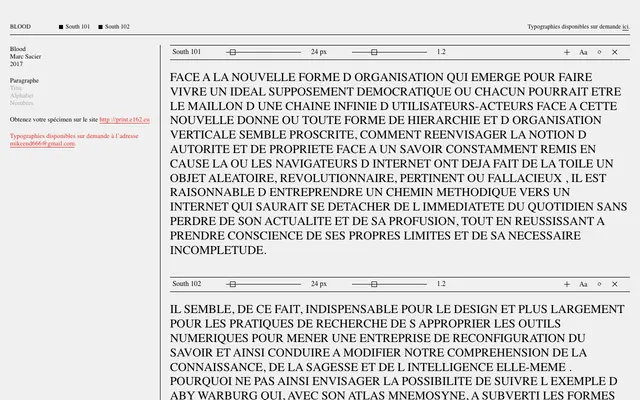
Blood
E162 · Marc Sacier · 2017
An all-capitals display typeface by Marc Sacier, released in two stylistic variants through the small French foundry E162.
Designed by Marc Sacier in 2017 and available through E162, Blood comes in two subfamilies — South 101 and South 102 — each offering a distinct stylistic register within the same all-capitals display framework. The character set runs to 341 glyphs and the typeface is available on request directly from the foundry. Its uppercase-only presentation and editorial specimen copy suggest a primary use in titling, poster and screen display contexts.
Blood appears as an all-capitals display typeface with two stylistic variants, suited to titling and headline use rather than extended text setting. Its uppercase-only specimen presentation and distinct stylistic alternates place it firmly in the display category.